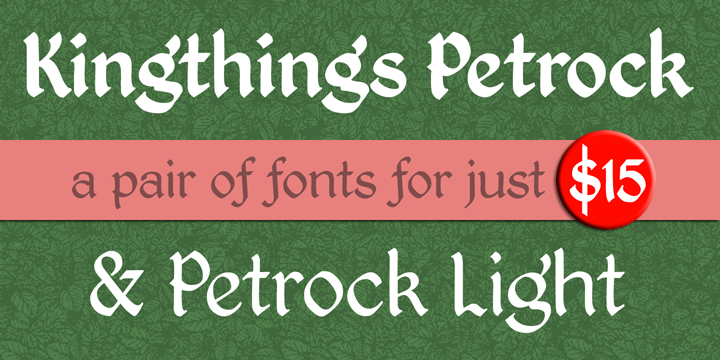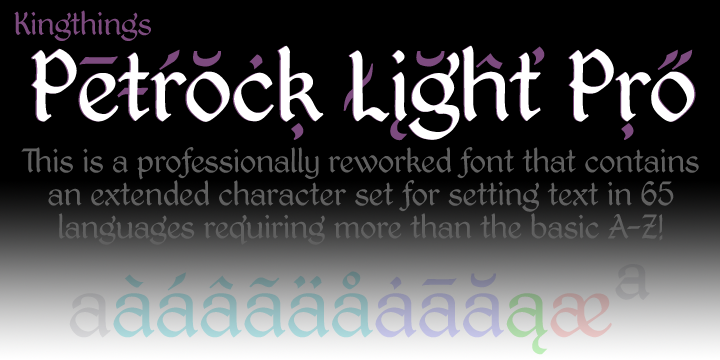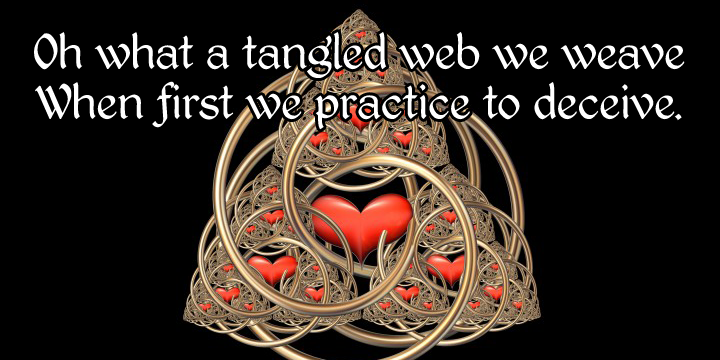
Kingthings Petrock Pro is a blackletter font family. This typeface has two styles and was published by CheapProFonts.
For these fonts I have reworked the spacing a bit, and completely redesigned the “N” as they were calligraphically very wrong.
Kevin King says: “Petrock is based on letterforms found in a small city Church in Exeter - from a display case about bell ringing. A lovely simple labeling hand, I think I’ve done it justice… Petrock Light is a lighter form of Petrock - makes both of them more usable.”